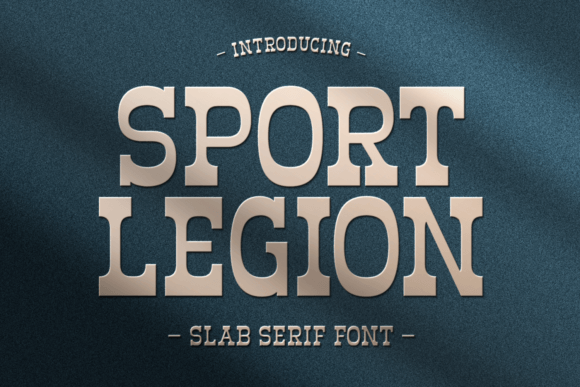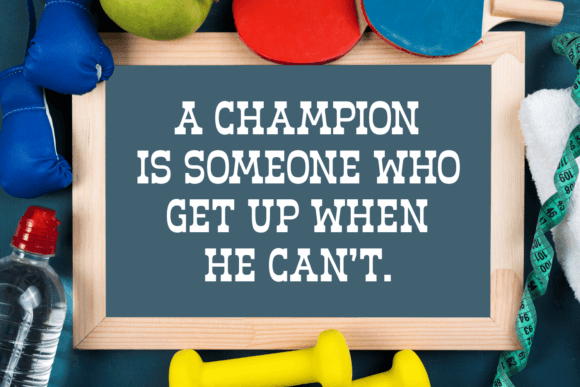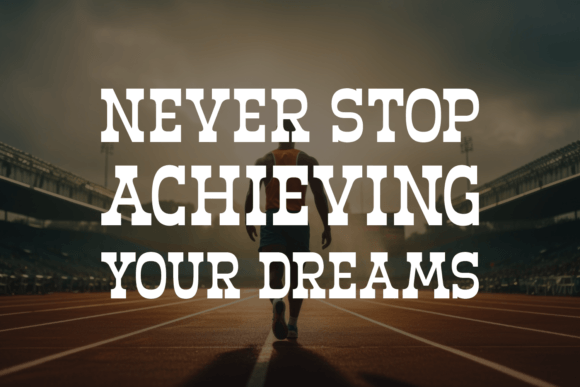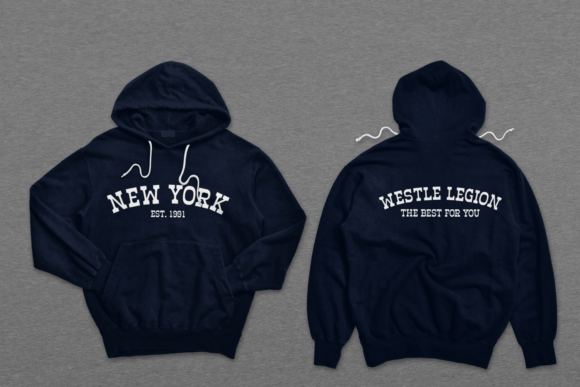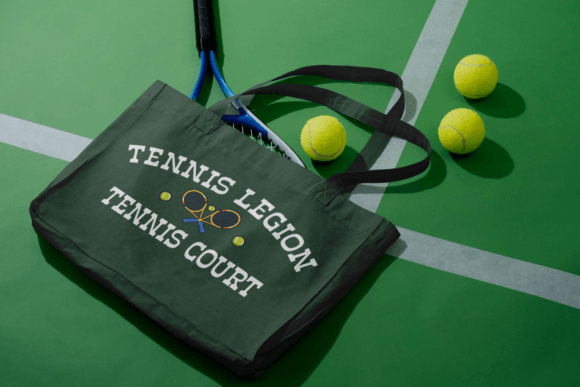
Sport Legion Font
About Sport Legion Font
Dive into the nuanced appeal of the Sport Legion Font, a refined slab serif typeface that elevates each creation it graces. Famous for its superior legibility, this meticulously designed font gives your headline an eye-catching edge, infusing vibrancy into your content. Apt for fashion endeavors or more conventional undertakings, this flexible font introduces an element of sophistication to any project, skillfully amplifying your brand or logo through its classic design. Revel in the classy charisma of the Sport Legion Font and see your creative endeavors flourish.